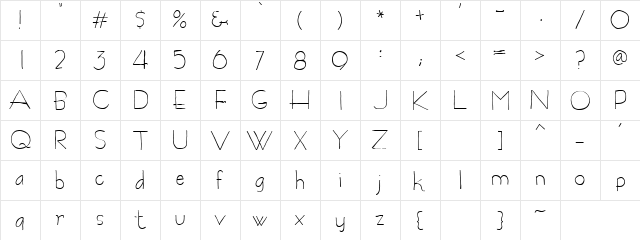
PC Vogue Regular
Design Context for PC Vogue Typeface
PC Vogue offers clean, dependable letterforms without strong stylistic allegiance, making it a practical choice for designers who need flexibility.